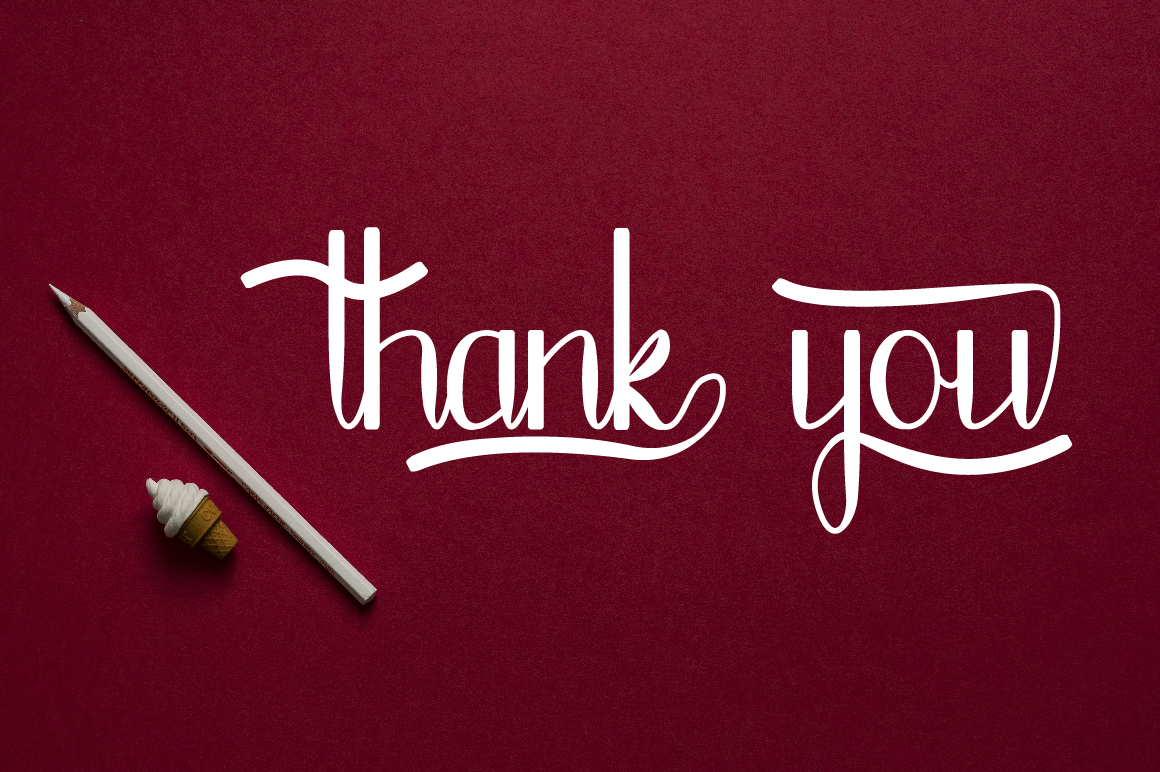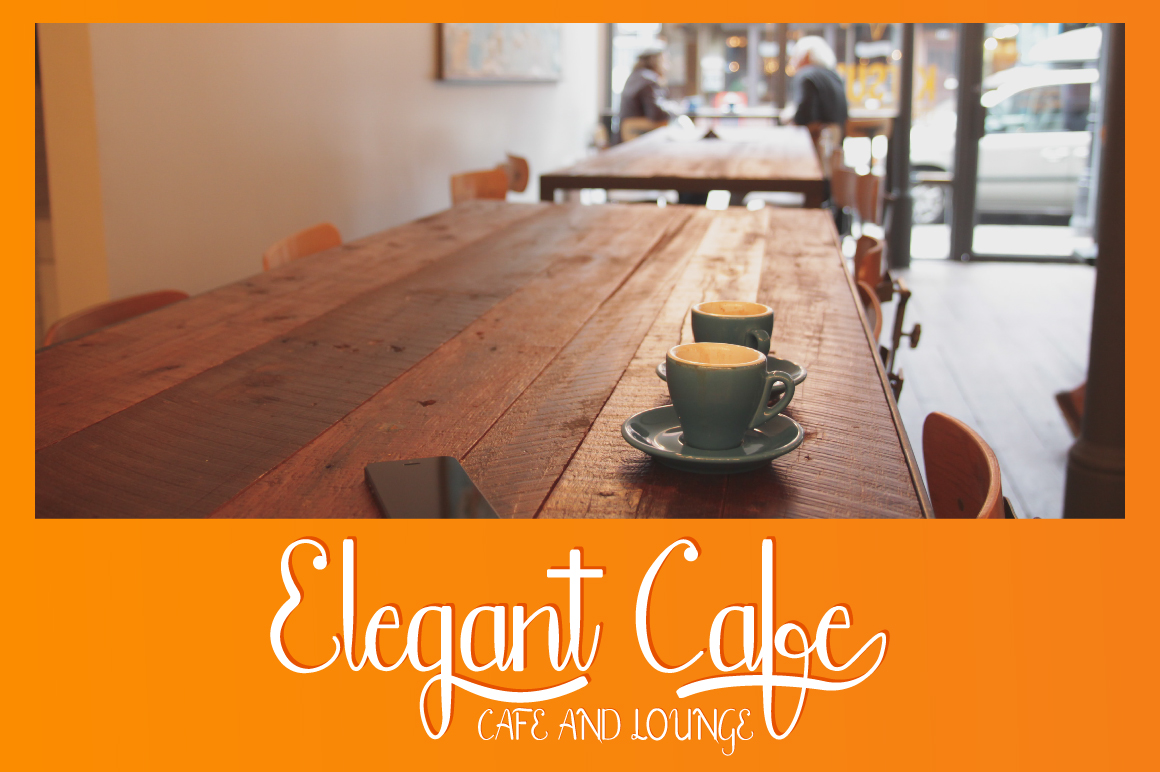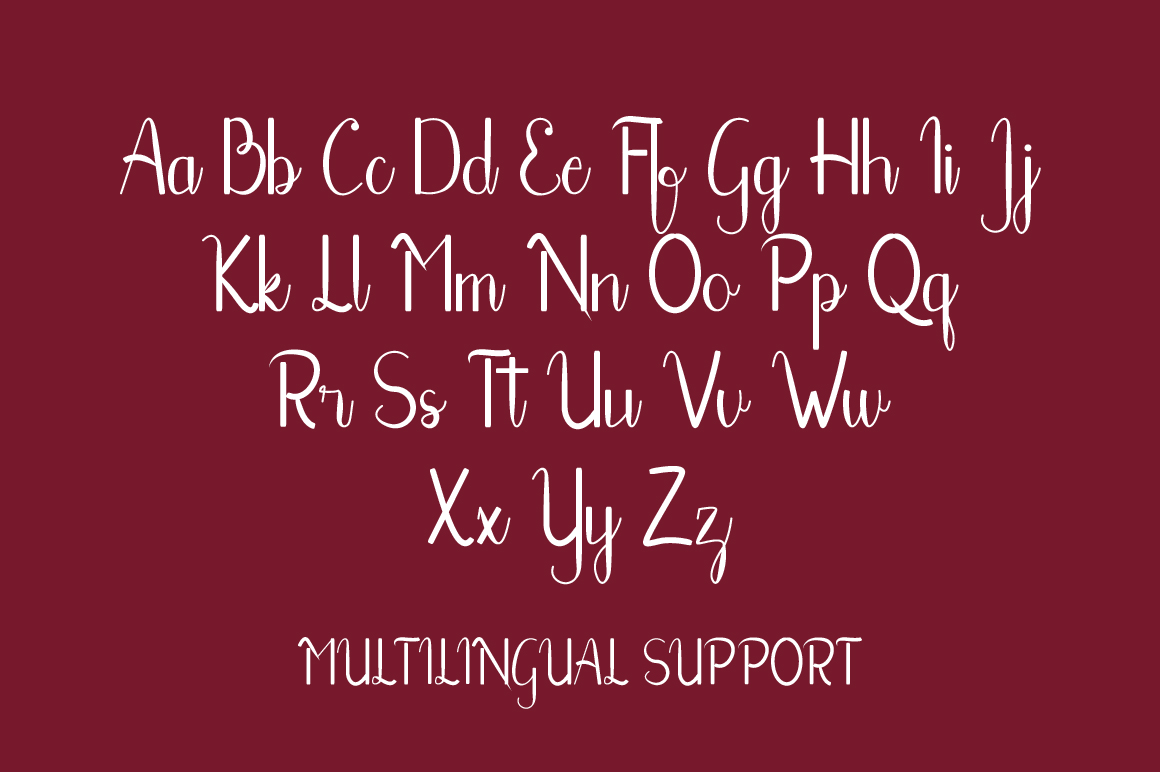
Reyna Free Font
Reyna Free Font features smooth and dazzling curves in each letter, making it an extraordinarily beautiful handwritten font. For you who needs a typeface for headline, logotype, apparel, invitation, branding, packaging, advertising, etc. This free typeface was designed by a talented Amruย ID. If you like it donโ€™t forget to check out the full version.